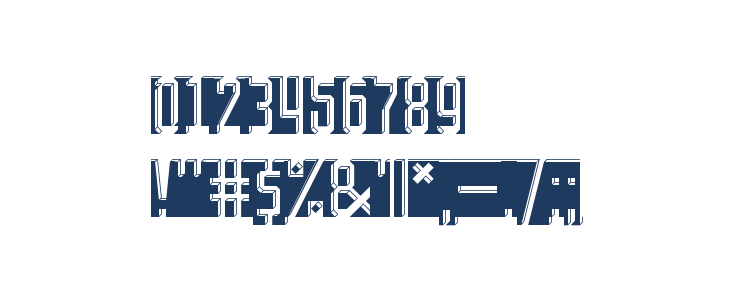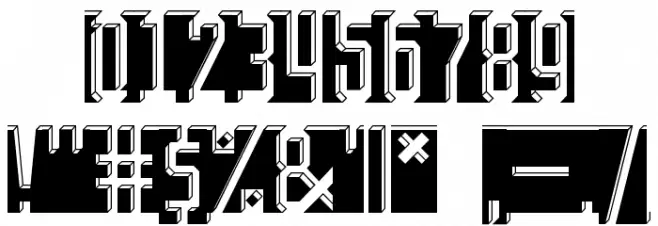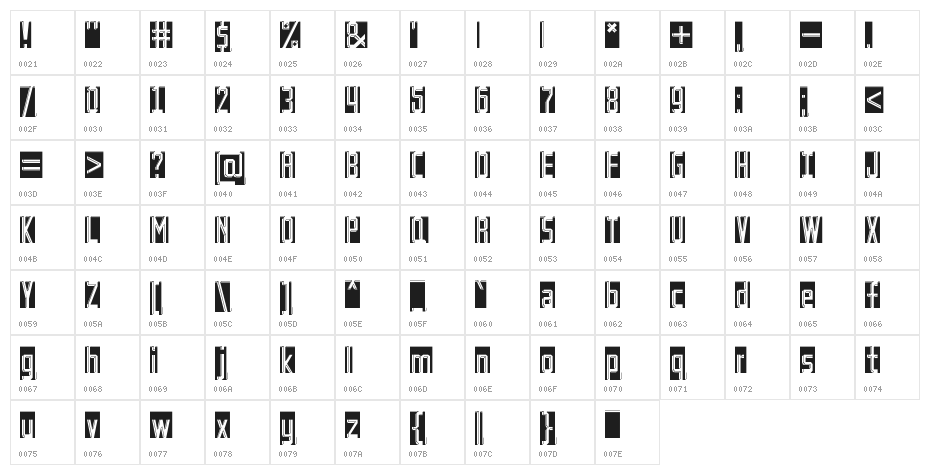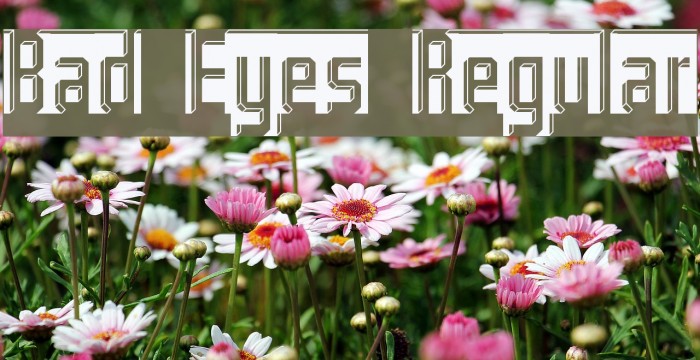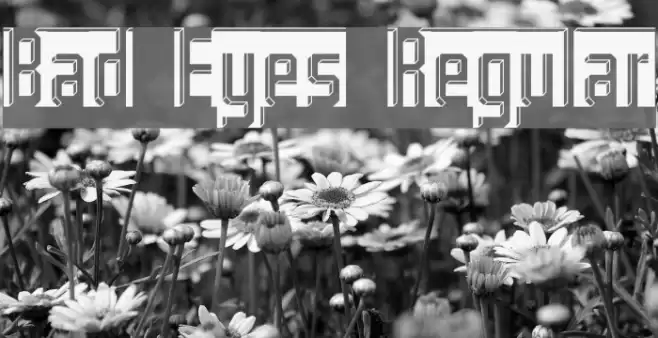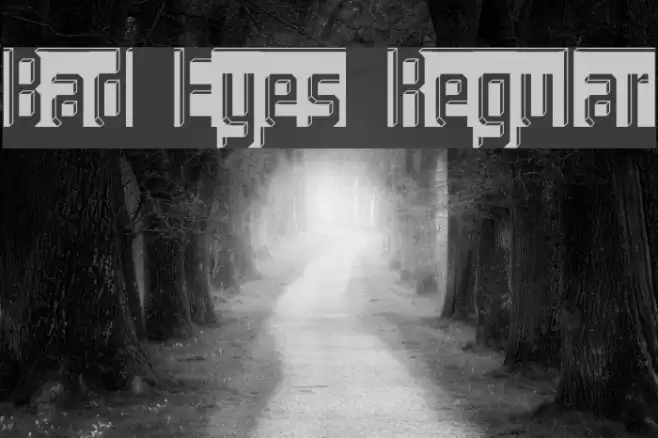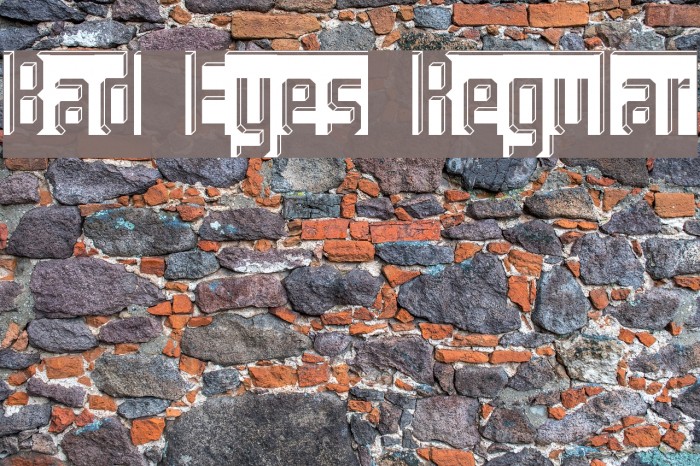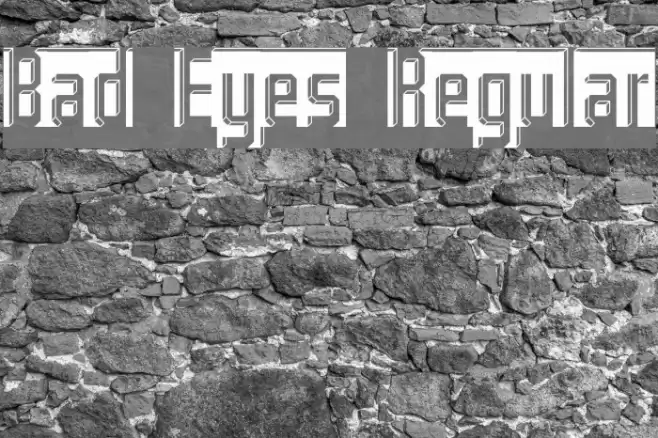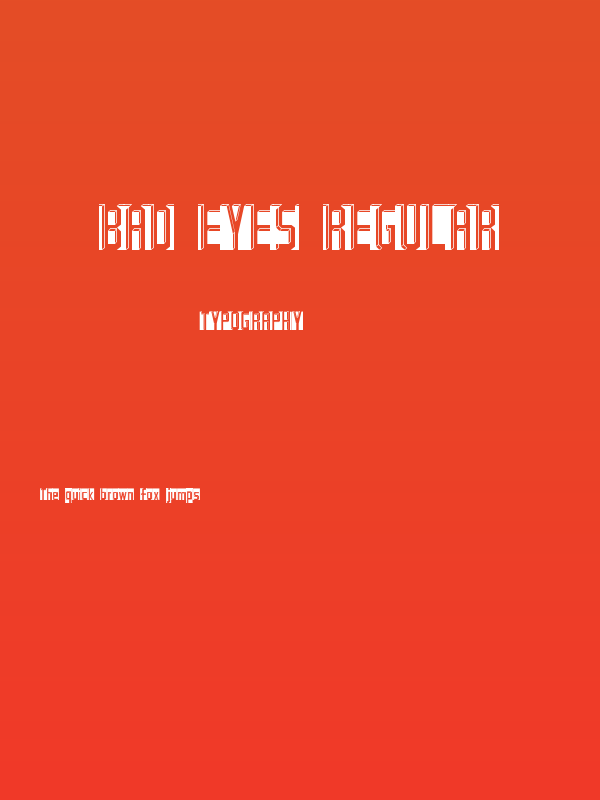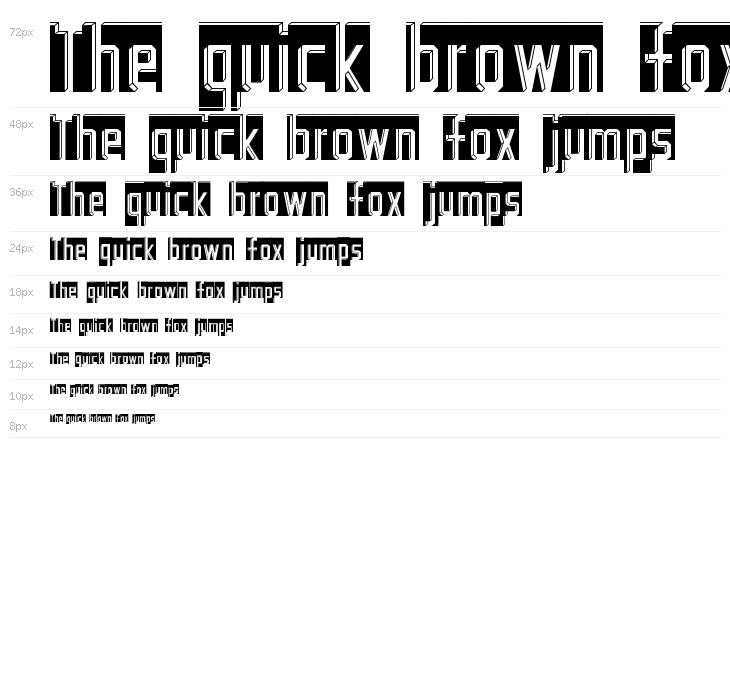
Bad Eyes Regular Font
Bad Eyes Regular Description
This font features a bold, three-dimensional design with a strong, shadowed effect that gives it a striking and impactful appearance. The characters are blocky and geometric, with sharp angles and a distinct outline that enhances the 3D illusion. The uppercase and lowercase letters maintain a consistent style, with a uniform thickness that contributes to the font's bold presence. The numerals and special characters follow the same design principles, ensuring a cohesive look across all elements. This font's unique style makes it stand out, ideal for projects that require a bold and eye-catching typeface.
| Proposed Projects | Ideal for posters, logos, video game graphics, and any project needing a bold, eye-catching typeface. |